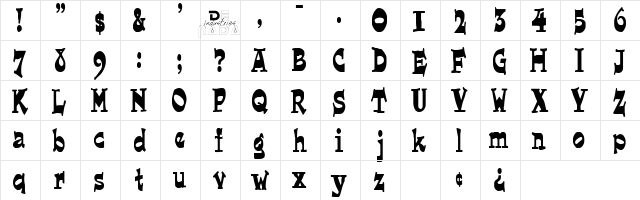
Joe Perry Font Preview
Joe Perry
Design Context for Joe Typeface
Joe is a composed and adaptable typeface that performs quietly and consistently across a wide range of design contexts.